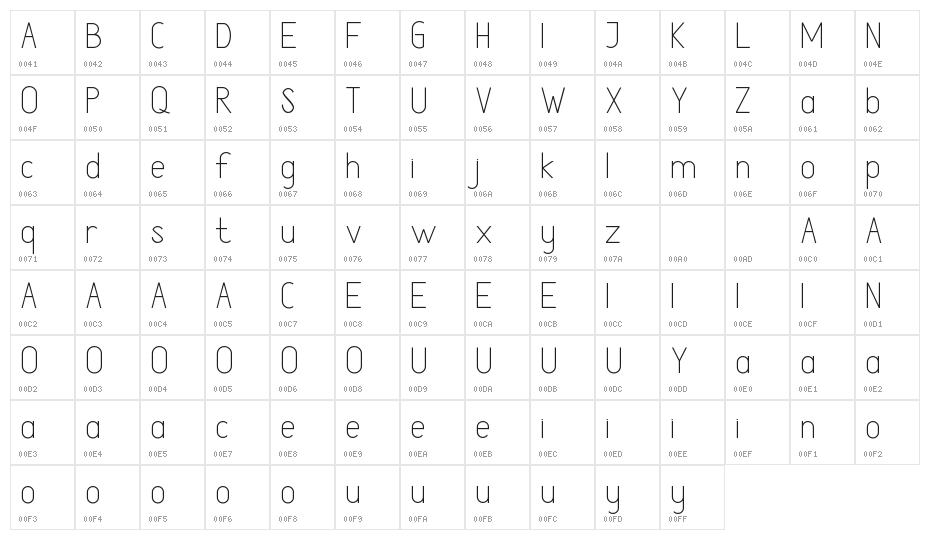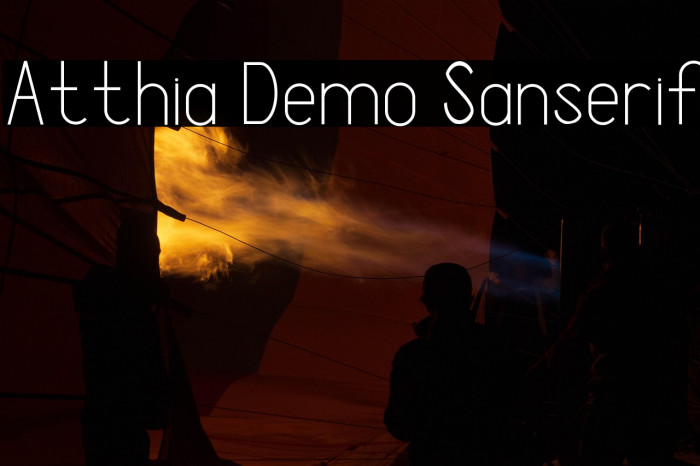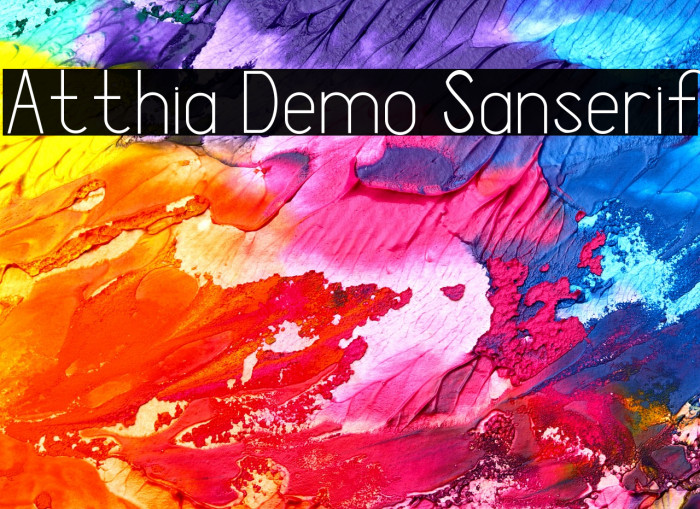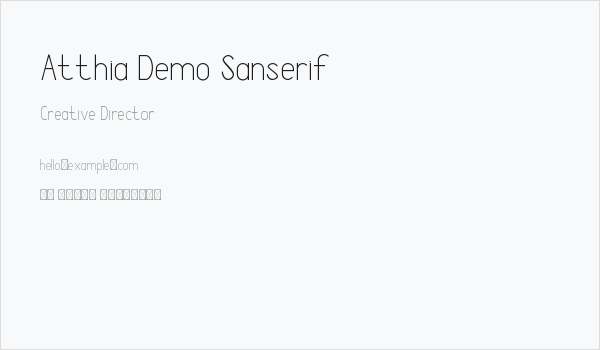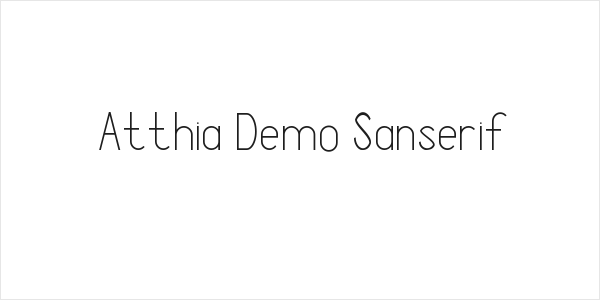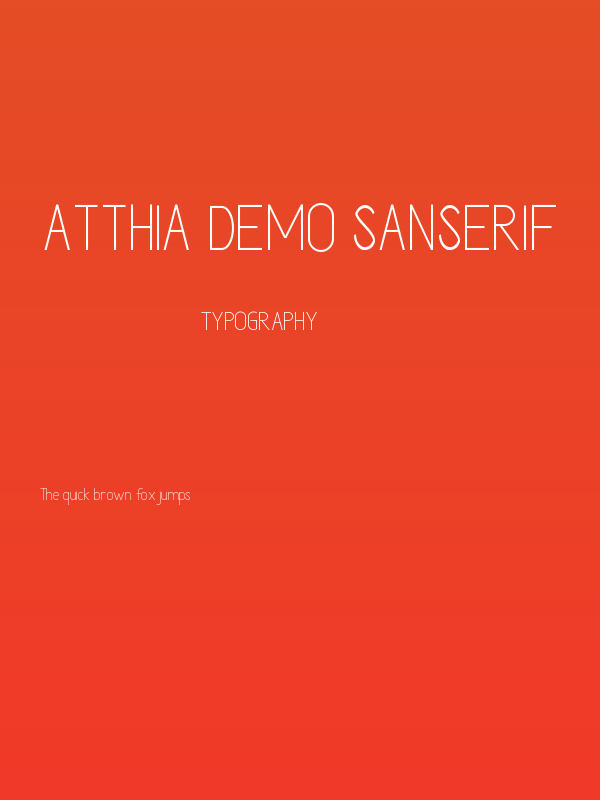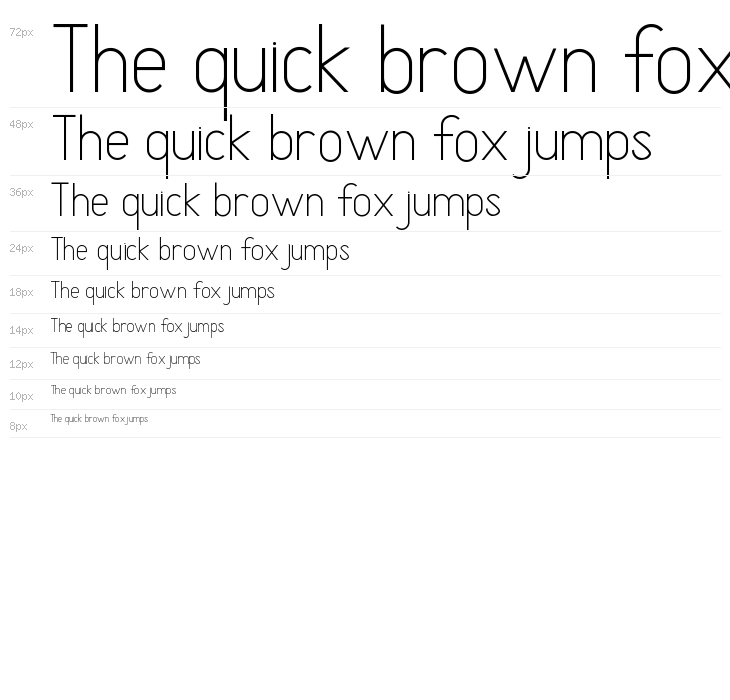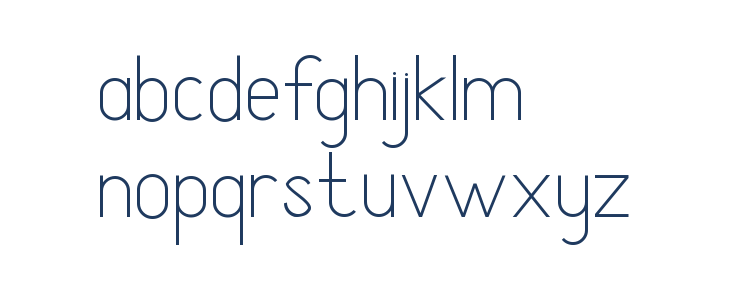
Atthia Demo Sanserif Font
Atthia Demo Sanserif Description
This font features a clean and modern sans-serif design with a geometric structure. The characters are tall and narrow, providing a sleek and contemporary look. The uniform stroke width across all characters gives it a minimalist aesthetic, making it highly legible and versatile. The uppercase and lowercase letters maintain a consistent style, with subtle variations in curves and angles that add a touch of elegance. The numbers and special characters are designed to match the overall style, ensuring a cohesive appearance across different uses.